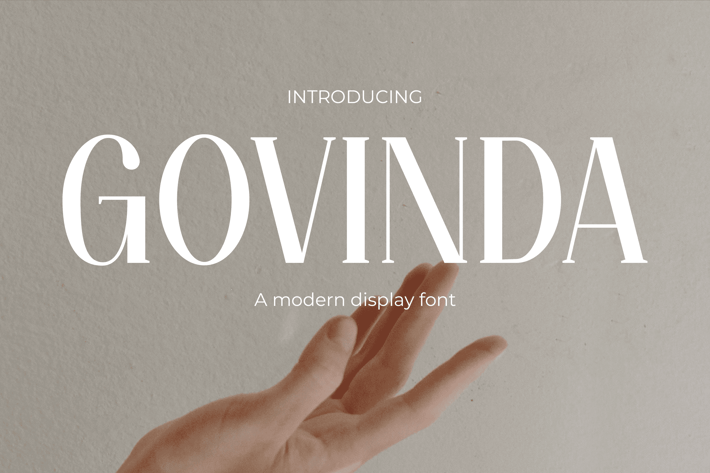
Govinda - Stylish Modern Font
Govinda, a fusion of retro charm and modern flair, epitomizes style and sophistication. Ideal for fashion, logos, quotes, invitations, signage, posters, greeting cards, packaging, branding, wedding quotes, cover albums, and more. Its versatile appeal brings chic elegance to any project with ease.